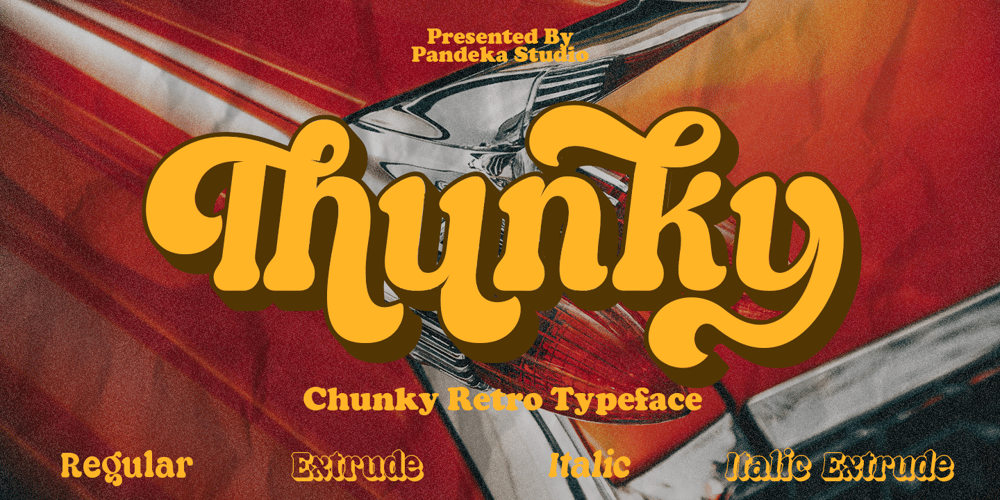
Thunky Font Family was designed by Sagara Nararya and published by Pandeka Studio. Thunky contains 4 styles and family package options. Thunky is an homage to the expressive, soft and rounded old-style serif typefaces from the sixties and seventies. Its gentle and juicy serifs give the typeface the right amount of warmth and nostalgia.Thunky have three types of fonts in this pack, Regular, Extrude, Italic, Extrude Italic version. Use this display font to add that special retro touch to any design idea you can think ofWhile hinting at the classic Cooper-like style, the reinterpretation features several unconventional letterforms which make both the roman and italic styles remarkably dynamic.Featured: Thunky Main Files Regular, Extrude, Italic, Extrude Italic Complete Special Alternates Instructions (Access special characters in all apps, even in Cricut Design) Accessible in Adobe Illustrator, Adobe Photoshop, Microsoft Word even Canva! PUA Encoded Characters. Fully accessible without additional design software Language Support: Danish, English, Estonian, Filipino, Finnish, French, Friulian, Galician, German, Gusii, Indonesian, Irish, Italian, Luxembourgish, Norwegian Bokmål, Norwegian Nynorsk, Nyankole, Oromo, Portuguese, Romansh, Rombo, Spanish, Swedish, Swiss-German, Uzbek (Latin)Feel free to follow, like and share. Thanks so much for checking out my shop!Have a great day!Pandeka Studio